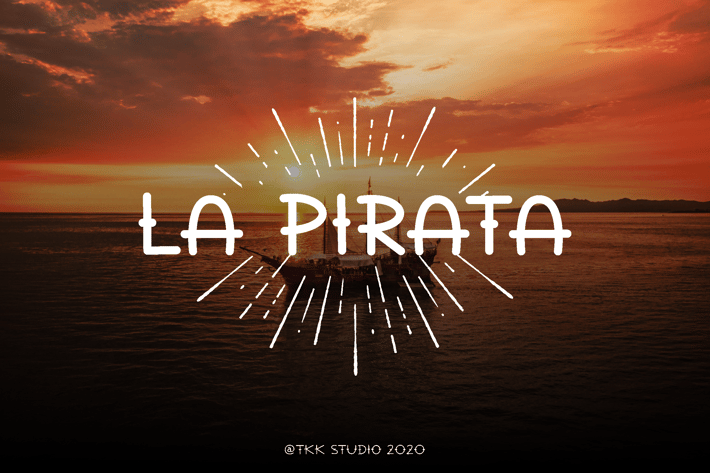
La Pirata - Vintage Tattoo Font
La Pirata is a rustic display font inspired by maritime tales and pirate legends. With its all-caps structure, balanced spacing, and gently weathered forms, this typeface evokes a sense of old-world strength and seafaring history. It uses subtly rounded corners and low contrast to mimic hand-carved letters seen on ships, barrels, and ancient maps.
The font’s vibe is bold, weathered, and nostalgic—perfect for storytelling-rich visuals. Designed with vintage aesthetics in mind, it fits effortlessly in branding projects for coffee labels, artisanal goods, whiskey packaging, and heritage editorials. It’s a font that speaks of journeys, treasures, and tales from the sea.
Whether you're crafting a bold logo, dressing up a vintage-style product, or building out a brand that leans into folklore and authenticity, La Pirata provides the perfect tone. With editorial charm and functional clarity, it bridges rustic warmth with confident structure—ideal for branding that tells a story, from book covers to craft brews and boutique tags.
Key Features
Why Designers Choose La Pirata:
Vintage Charm: A timeless feel inspired by maritime legends and weathered craftsmanship
All-Caps Strength: Uniform uppercase for bold, high-impact layouts
Rustic Versatility: Works great on packaging, branding, and editorial titles
Natural Balance: Slight irregularities evoke handcrafted authenticity